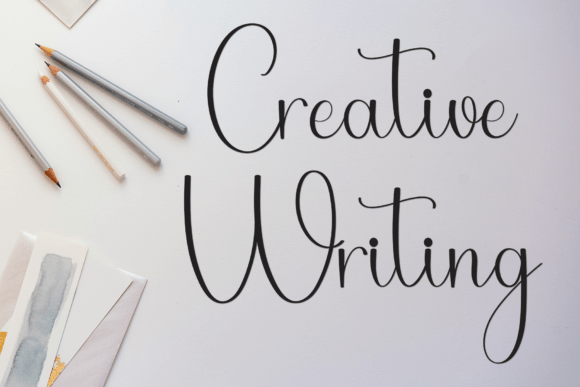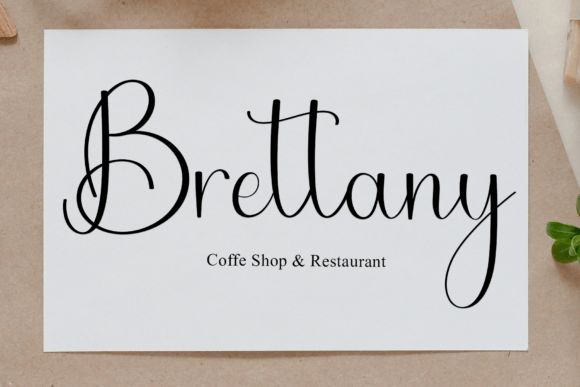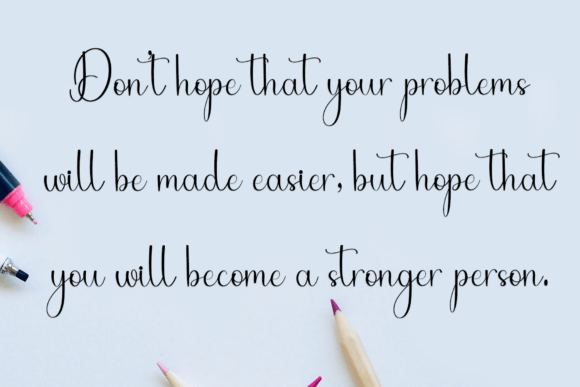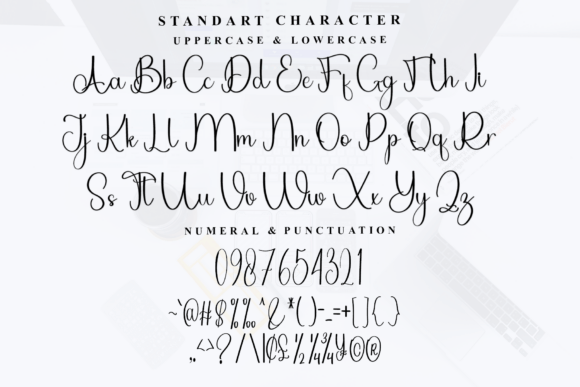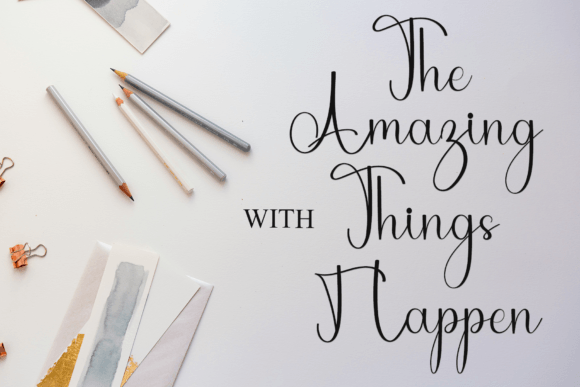
Unleashing the Whimsy: The Charm of Bubble Handmade Font
Remember that moment when you stumbled upon the perfect font for a project? The excitement, the thrill, and the rush of creativity that comes with it? For designers, finding the right font can be a game-changer. It’s like discovering a hidden treasure that elevates the entire design to a new level. And that’s exactly what the Bubble Handmade Font offers – a unique blend of modernity and playfulness that’s hard to resist.
Bubble Handmade Font is a modern handwritten typeface designed for various applications, from logos and invitations to product packaging and social media graphics. Its versatility and charm make it a valuable addition to any designer’s toolkit. With its fluid, cursive lines and whimsical feel, this font is perfect for creating eye-catching designs that stand out from the crowd.
Bubble Handmade Font Key Features
- Unique Hand-Drawn Design: Each character in the Bubble Handmade Font is carefully hand-drawn to give it a unique, personal touch.
- Character Set: The font includes a comprehensive character set, including uppercase and lowercase letters, numbers, punctuation marks, and special characters.
Bubble Handmade Font Review
At first glance, I was drawn to the whimsical and playful feel of Bubble Handmade Font. The designer has done a great job of capturing a carefree, handwritten aesthetic that’s sure to add a touch of personality to any project.
- ✨ Unique and playful letterforms that evoke a sense of hand-drawn charm.
- ✨ A wide range of character sets, including punctuation and numbers, that are all consistent with the font’s handmade feel.
- ✨ Good support for languages, making it a versatile choice for global projects.
- ⚠️ The font can be quite busy and may not be suitable for projects where readability is a top priority.
- ⚠️ Some characters, particularly those with ascenders and descenders, may be a bit irregular and inconsistent with the font’s overall feel.
Overall, I think Bubble Handmade Font is a great choice for projects that require a lighthearted and playful tone. Just be aware of its limitations and use it thoughtfully to get the best results.
To get the most out of the Bubble Handmade Font, use it for:
- Creating whimsical and playful designs.
- Adding a touch of elegance and sophistication to your designs.
- Designing for children’s products, such as stickers, coloring books, and more.
The Bubble Handmade Font is commonly used for:
- Party invitations and decorations.
- Children’s book covers and illustrations.